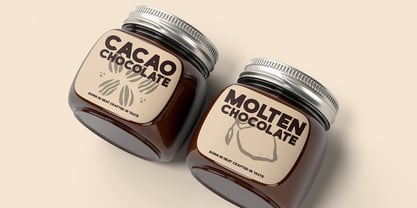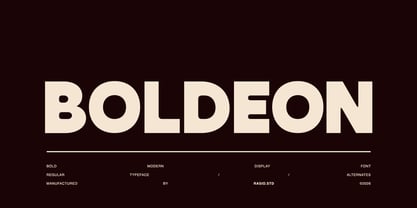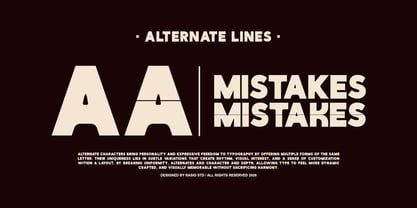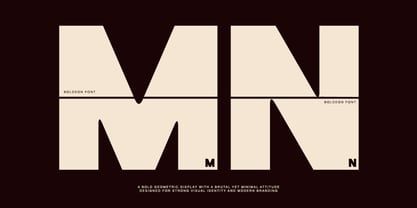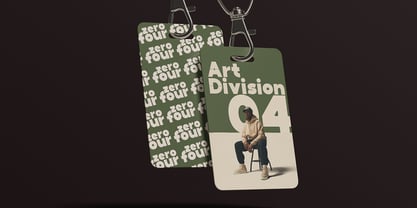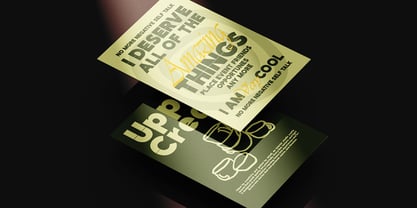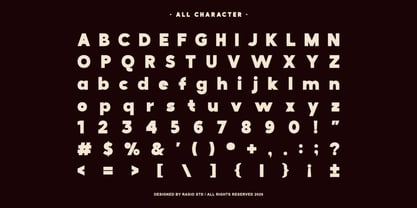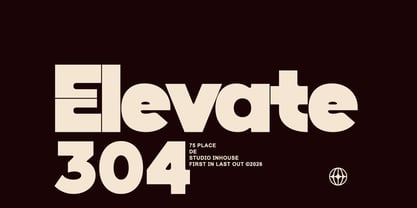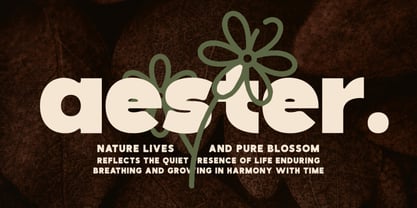
Boldeon
Boldeon is a bold modern display typeface designed for maximum impact. With strong geometric shapes, thick weights, and punchy rhythm, Boldeon delivers striking typographic presence perfect for headlines, posters, branding, and editorial design. Boldeon is perfect for designers looking to make a bold statement. Whether it’s a campaign headline, a product label, a brand logo, or editorial graphics, Boldeon’s solid form and energetic alternates deliver eye-catching results.